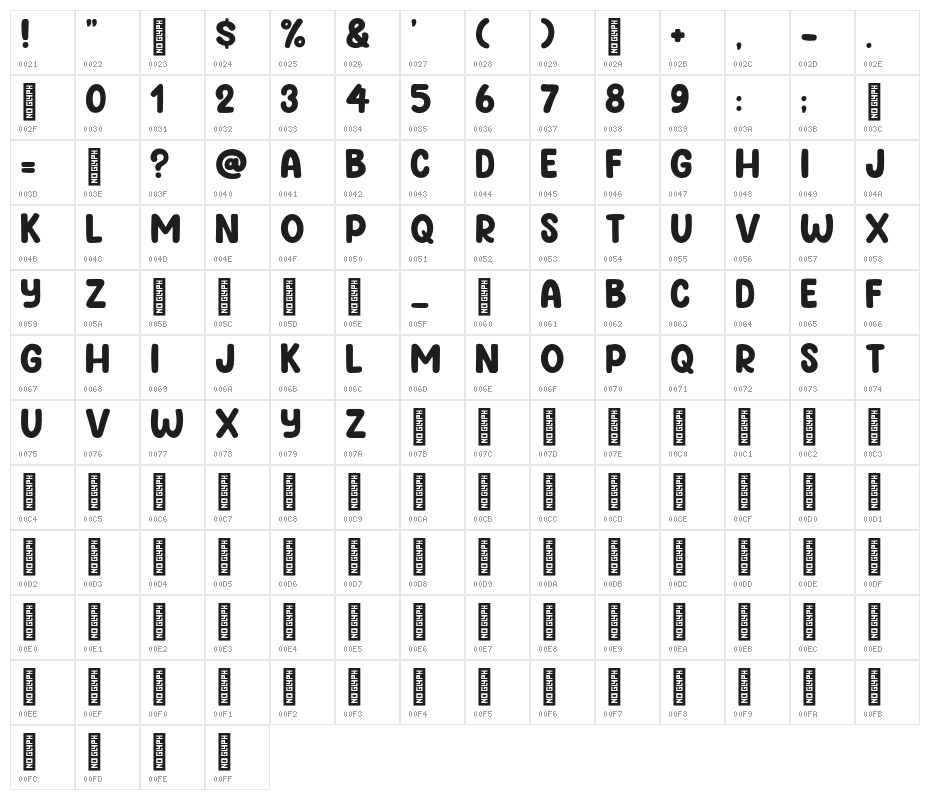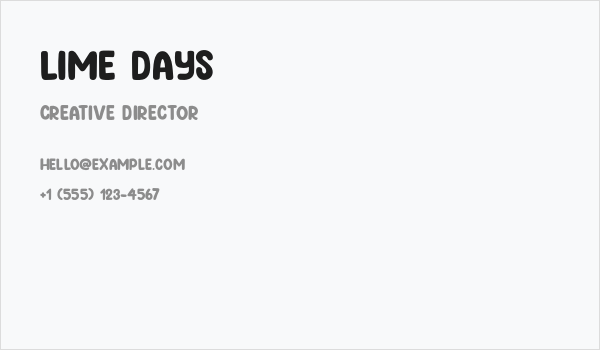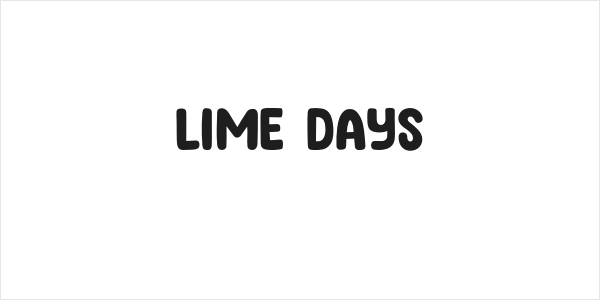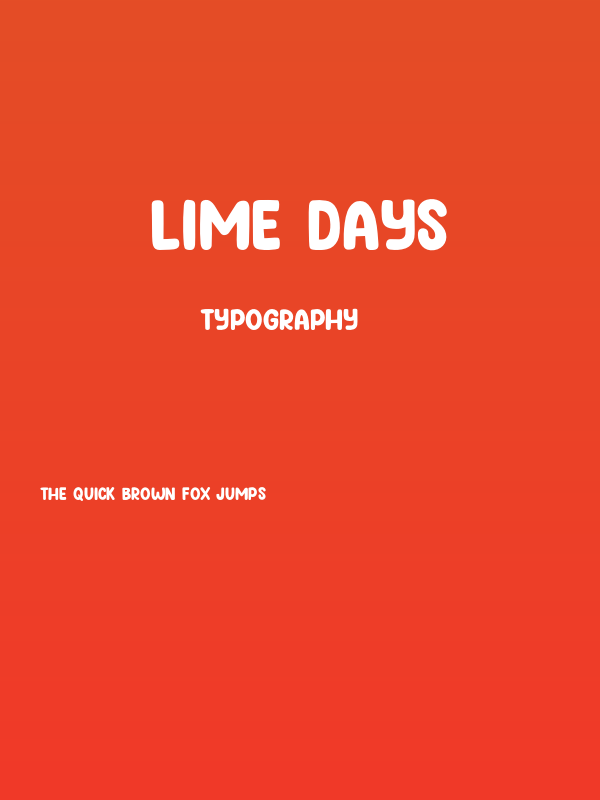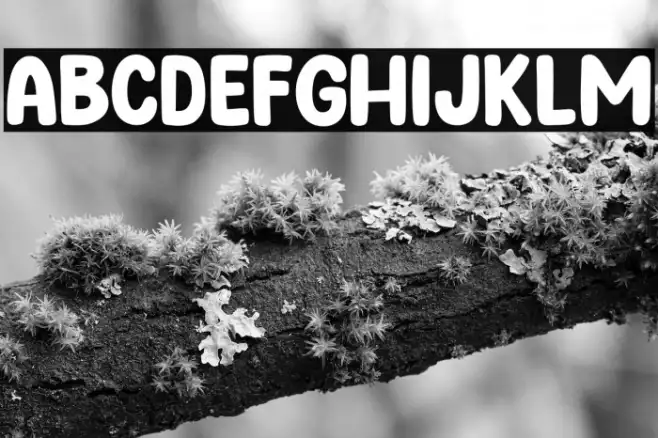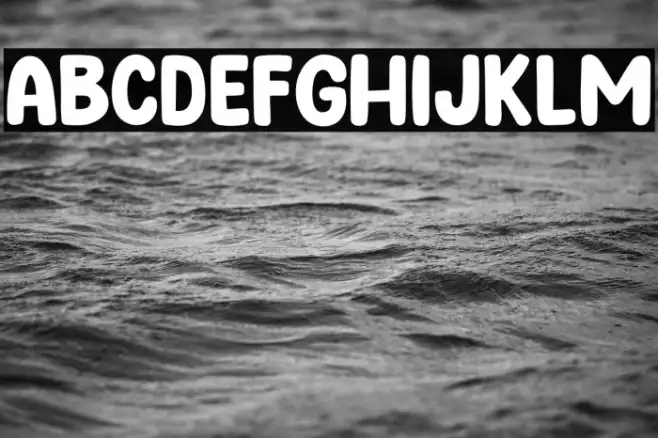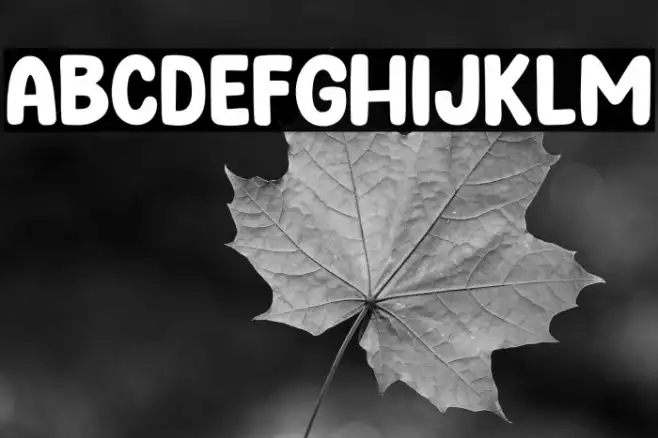
Lime Days Font
Lime Days Description
This font features a bold and playful design, characterized by its rounded and thick strokes. Each letter has a consistent weight, giving it a cohesive and uniform appearance. The font exudes a sense of fun and friendliness, making it ideal for projects that aim to convey a lighthearted and approachable tone. Its boldness ensures high readability, even from a distance, while the rounded edges add a touch of softness. The numbers and special characters maintain the same playful style, ensuring consistency across all text elements.
| Proposed Projects | Ideal for children's books, playful branding, posters, and social media graphics. |